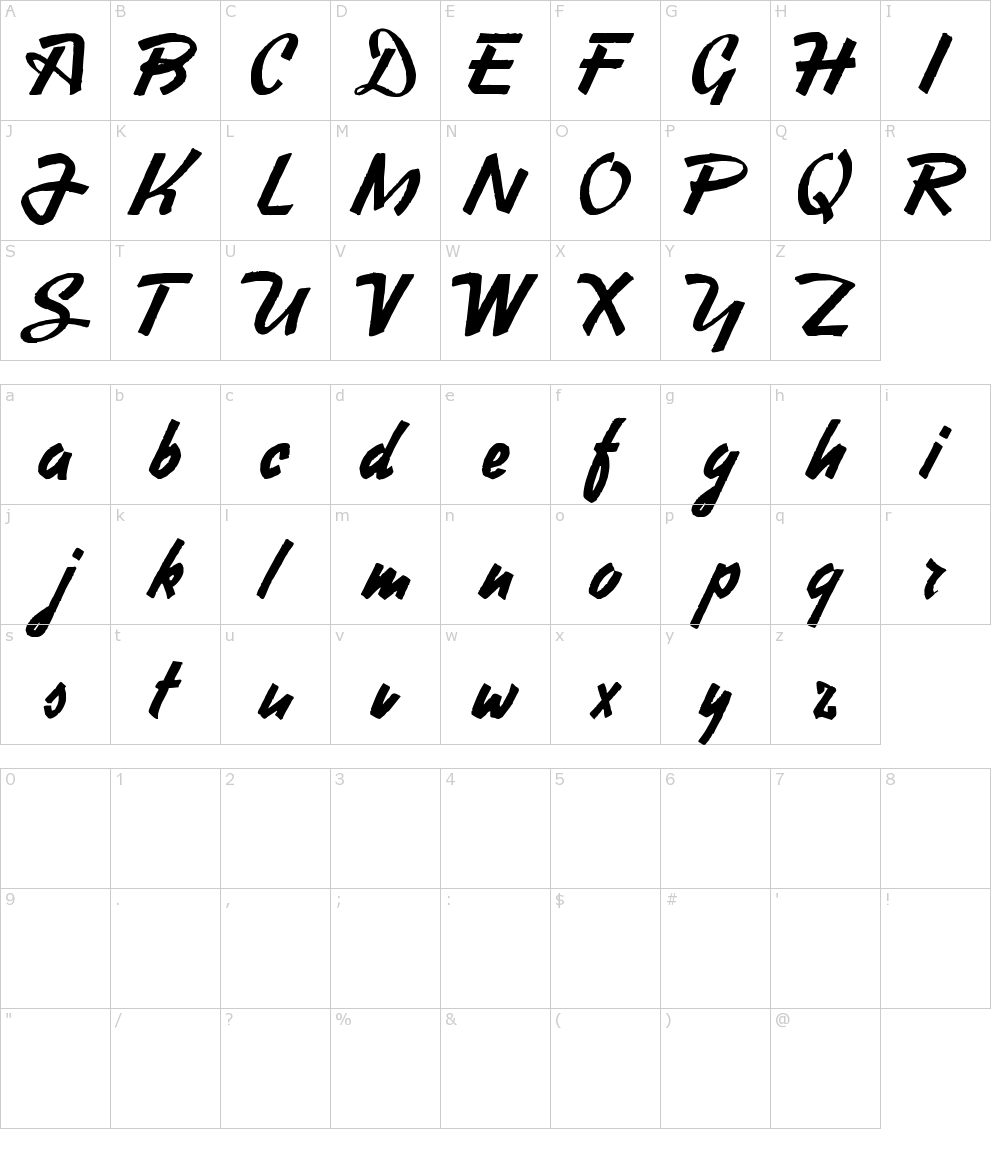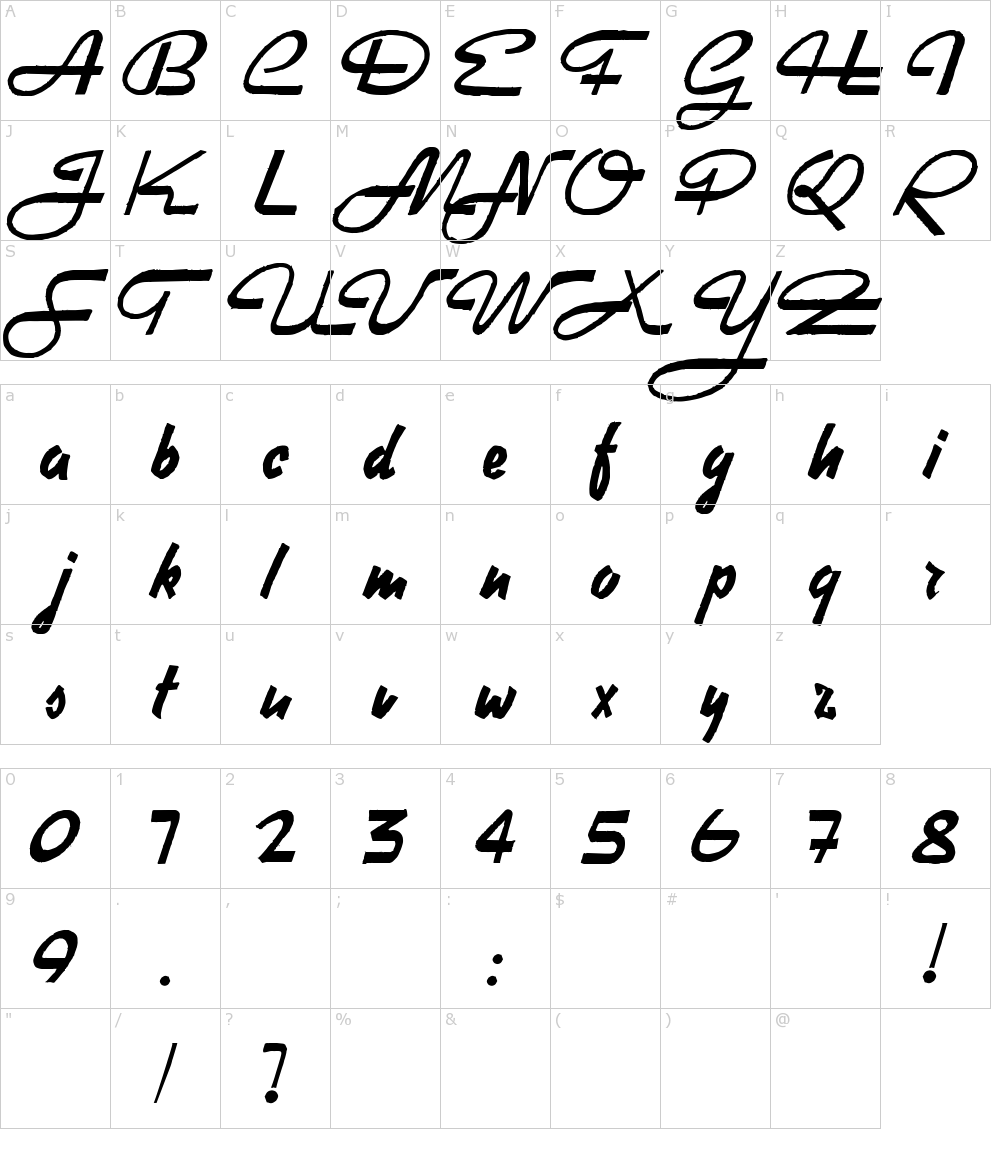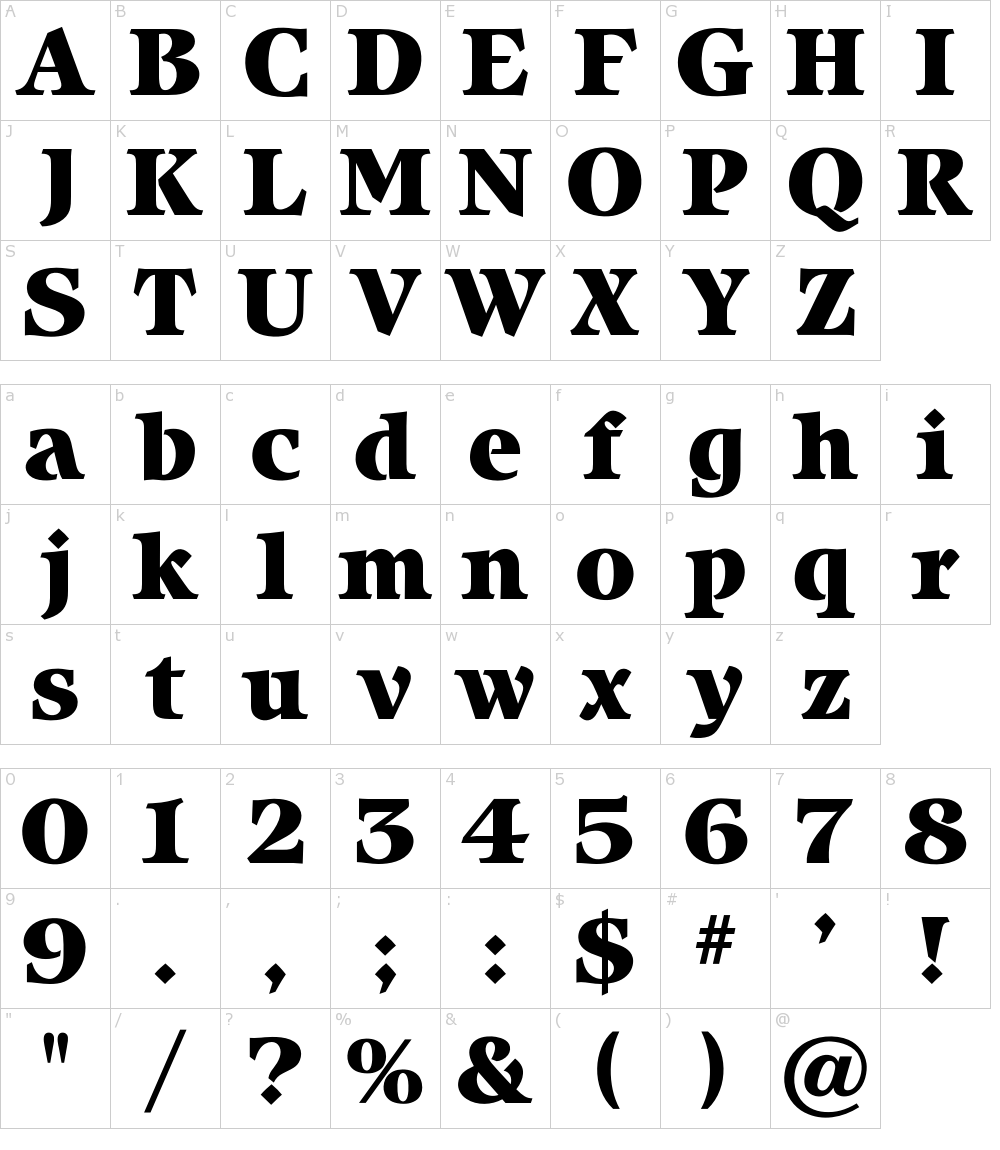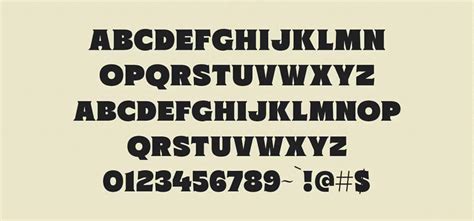
What Is Fonts Heavy?
Fonts Heavy is a type of font that is more visually striking, bold and larger than typical fonts. It is often used to emphasize certain words or phrases, or to create an eye-catching effect. Fonts Heavy is a great way to draw attention to a particular message, whether it’s used in advertising, marketing, or branding. Although Fonts Heavy is a more modern font, it can still be used with older fonts, making it very versatile.
Fonts Heavy typically comes in a variety of styles, including serif, sans-serif, script, and more. Serif fonts are typically more traditional and easier to read, while sans-serif fonts are more modern and often used for headlines. Script fonts are slightly more decorative and often used for logos and branding. Fonts Heavy can be used with any of these font styles, making it a great option for any type of design.
When To Use Fonts Heavy
Fonts Heavy is a great way to make a statement, so it’s often used in logos, headlines, and other eye-catching elements. It’s especially popular for advertisements, posters, and other promotional materials. Fonts Heavy is also a great way to make a message stand out, so it’s often used in titles, subtitles, and other important elements. Fonts Heavy can be used in any type of design, from websites to print media.
Fonts Heavy can also be used to add a bit of visual interest to text-heavy designs. For example, it can be used to draw attention to a particular word or phrase, or to make a particular element stand out. Fonts Heavy can also be used to create a more dynamic and interesting layout, which is especially useful for web design.
How To Use Fonts Heavy
When using Fonts Heavy, it’s important to keep in mind the overall design. Fonts Heavy can be used to draw attention to specific elements, but it should be used sparingly. Too much Fonts Heavy can be overwhelming, and can make a design look cluttered. It’s best to use Fonts Heavy to accentuate certain elements, rather than to be the main focus of the design.
When using Fonts Heavy, it’s also important to consider the font size. Fonts Heavy should be slightly larger than other fonts in the design, but not so large that it becomes difficult to read. It’s also important to choose a font that is legible and easy to read, as Fonts Heavy can often be difficult to read at smaller sizes.
Fonts Heavy is a great way to make a statement, draw attention to a particular element, or add visual interest to a design. It can be used with any type of font, and can be used to create an eye-catching effect. However, it’s important to use Fonts Heavy sparingly, and to be mindful of font size and legibility. When used correctly, Fonts Heavy can be a great way to make any design stand out.